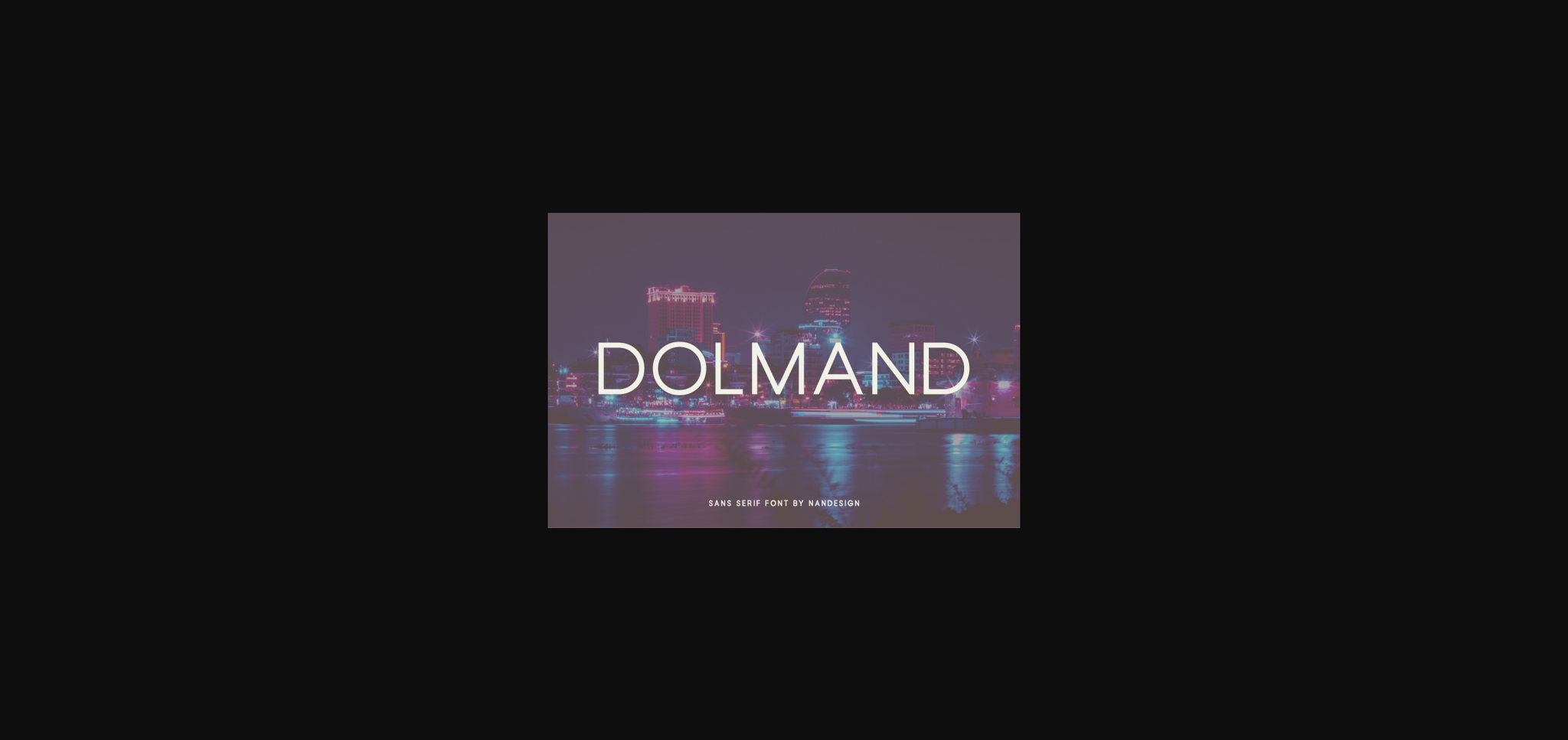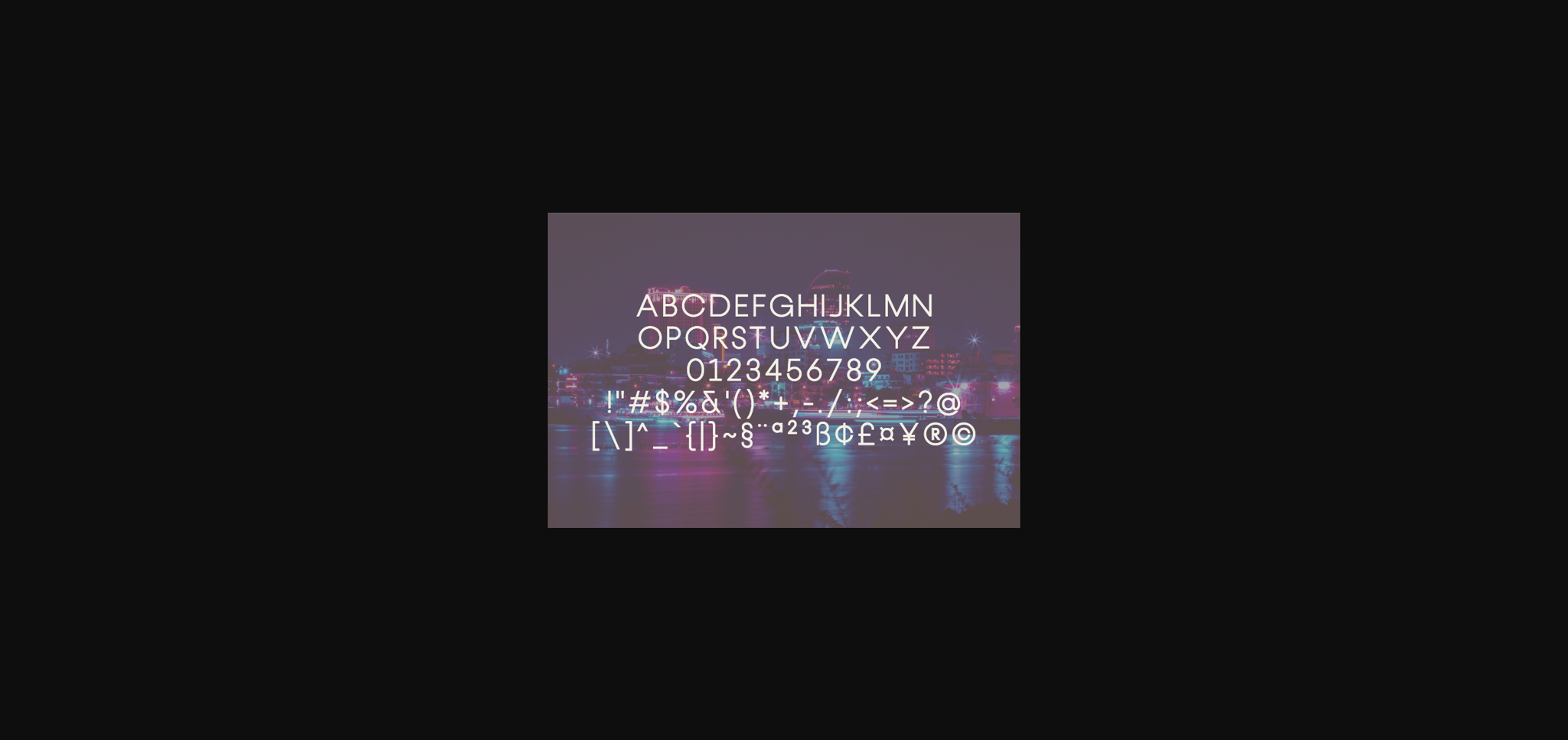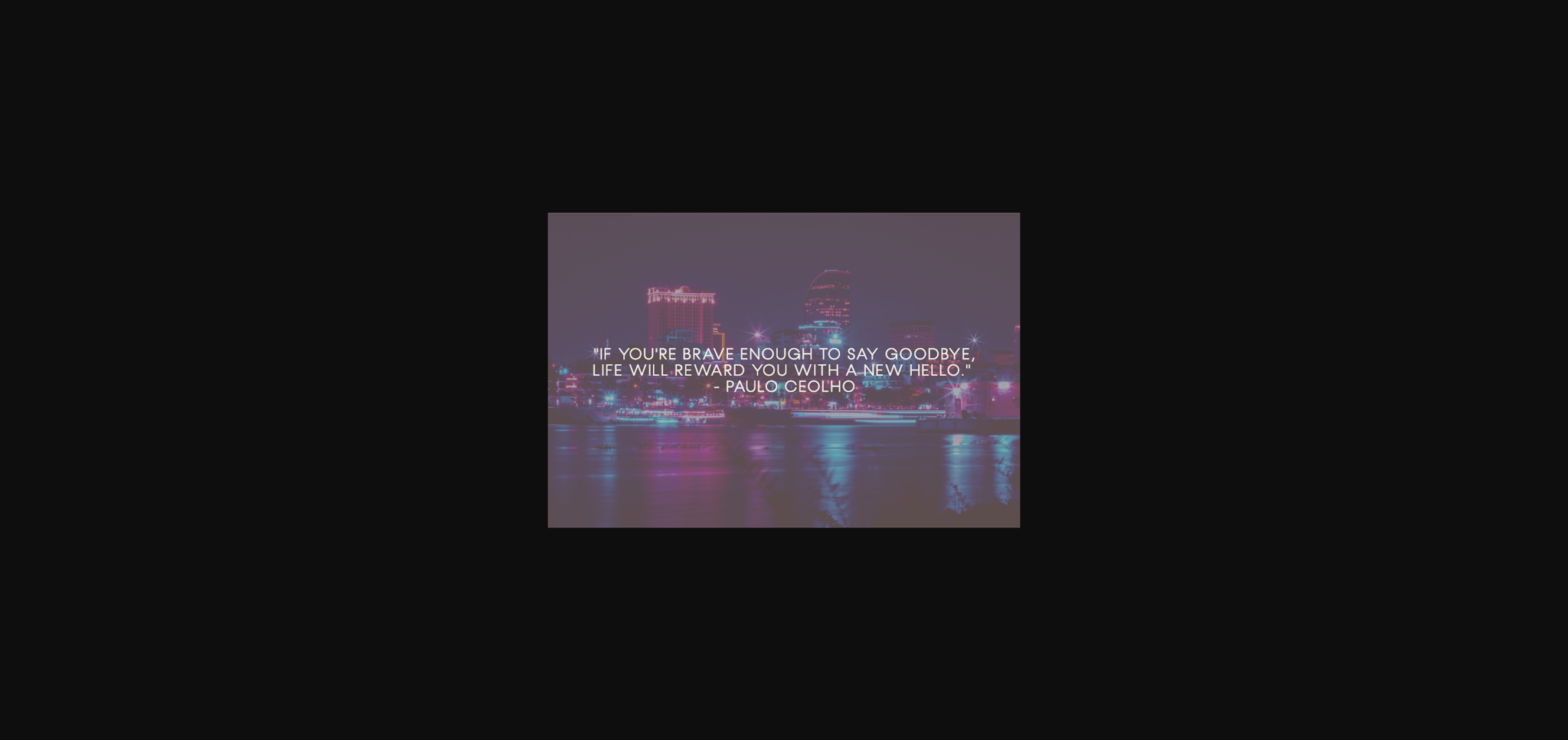
HomeSans Serif FontsDolmand Font Sans Serif Fonts Dolmand Font FacebookTwitterPinterestWhatsApp 1 of 5 ... Dolmand Font Poster 2... Dolmand Font Poster 3... Dolmand Font Poster 4... Dolmand Font Poster 5... About Dolmand Font Dolmand is a great sans serif font. Use it to create beautiful headings, gorgeous invitations, stunning logos, and so much more! DOWNLOAD NOW People also explored Farmhouse Font Laugh Smile Font Floresta Script Font Boho Baby Font Bambina Font Auloriel Font Himalaya Wind Font Valencia Font Baby Doodles 152 0 TagsDolmandDolmand Font Previous articleSans Ferios FontNext articleTripcopus Font LEAVE A REPLY Cancel reply Comment: Please enter your comment! Name:* Please enter your name here Email:* You have entered an incorrect email address! Please enter your email address here Website: Save my name, email, and website in this browser for the next time I comment. Personal Use Free Ardilla Font Personal Use Free Read more about this font Fillguy Font Personal Use Free Read more about this font Black Friday Personal Use Free Read more about this font Ryujin Attack Personal Use Free Read more about this font BLOG Free vs Paid Fonts: Why Investing in Premium Fonts Is Worth It Free vs Paid Fonts: Why Premium Fonts Are Worth It in 2025 The debate of free vs paid fonts continues in the design world. While... To increase your work productivity, choose the most readable fonts. Using Fonts in Digital Marketing: Tips to Strengthen Your Brand Identity Best Fonts for T-Shirt Design – Top 2025 Picks